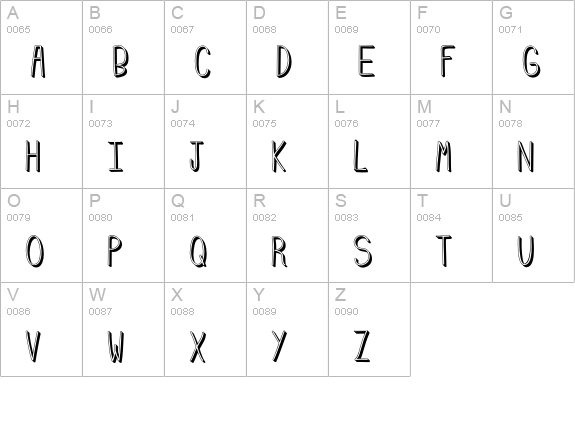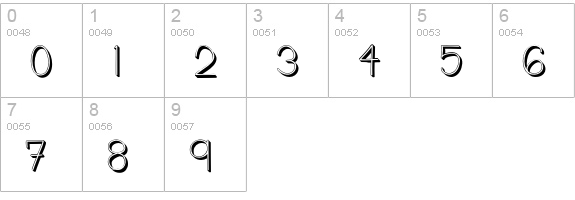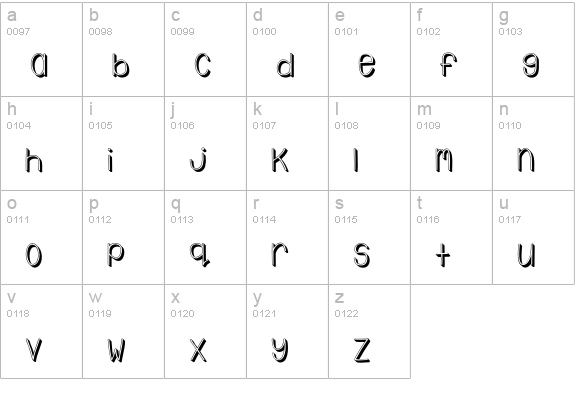
Emmy 3D Font Details
Emmy 3D font is a captivating and eye-catching typeface that adds a touch of depth and dimension to any design project. With its bold and dynamic appearance, this font is perfect for creating attention-grabbing headlines, posters, logos, and more. The Emmy 3D font features intricate 3D letterforms that are intricately designed to create a sense of depth and realism. Each letter is meticulously crafted with precision and attention to detail, resulting in a visually stunning and impactful display font. One of the best things about Emmy 3D font is that it is available for free. Yes, you heard it right! This amazing font can be freely downloaded at FontsMarket.com, a trusted platform for high-quality fonts. You can easily access and install this font to enhance your creative projects without any cost. Whether you are a graphic designer, a content creator, or simply a typography enthusiast, Emmy 3D font is a must-have in your collection. Its unique 3D design sets it apart from traditional fonts and adds a sense of depth and dimension to your designs. So, if you're looking to add a touch of creativity and uniqueness to your projects, download Emmy 3D font for free at FontsMarket.com and let your imagination soar.